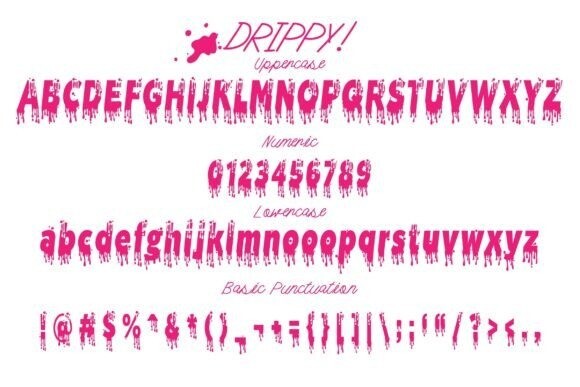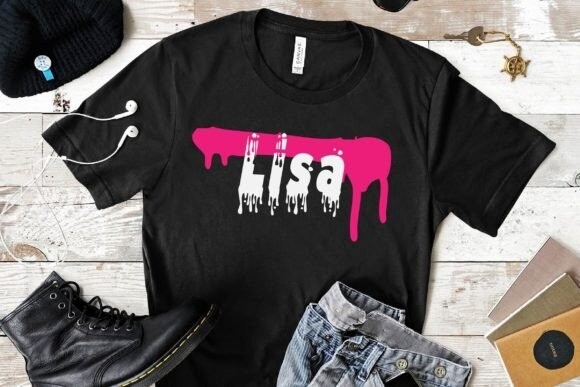
Drippy! Font
Drippy! is a thick-lettered yet unique and original display font that can be used for a variety of quotes or teaching material! Its authentic look will add a personal and realistic feel to your designs.